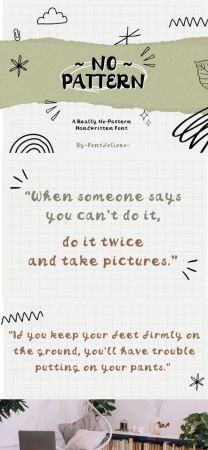
CF - No-pattern Font 93167500
The “No-Pattern” font is a simple handwritten style that is clear to read. The characters have a unique feature where the stroke weights are varied throughout, offering a straightforward and friendly feel.